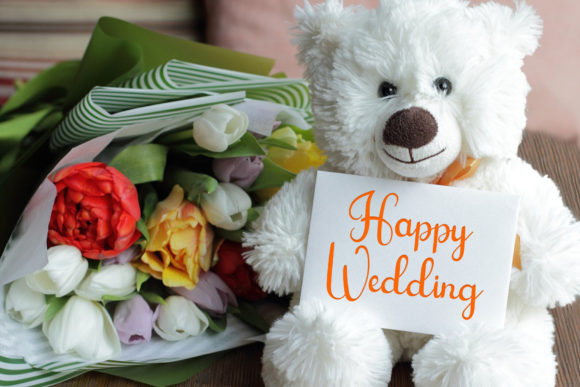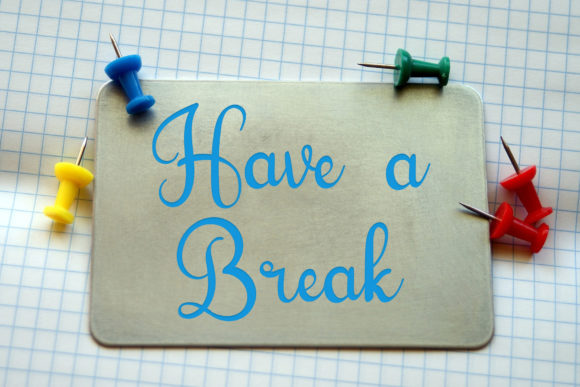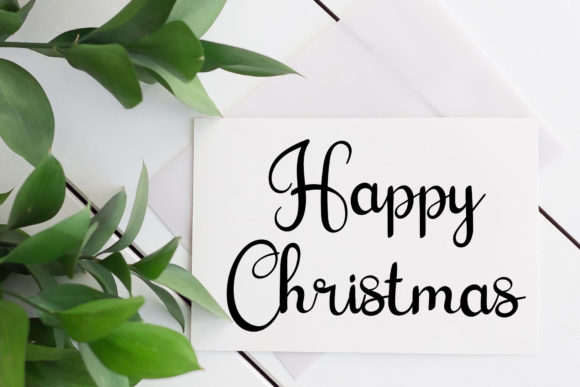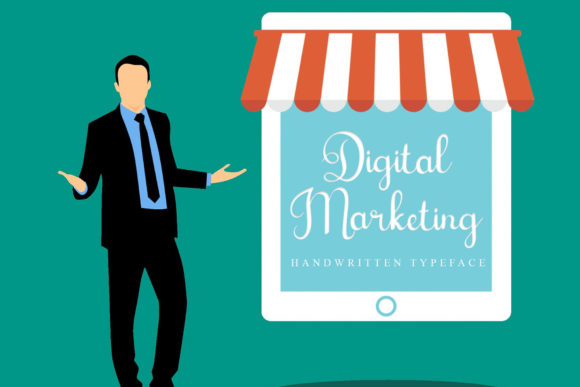
About Waterdrop Font
Waterdrop is a lovely script font featuring charming, playful characters that seem to dance along the baseline. Add this font to your most creative ideas, and notice how it makes them stand out!